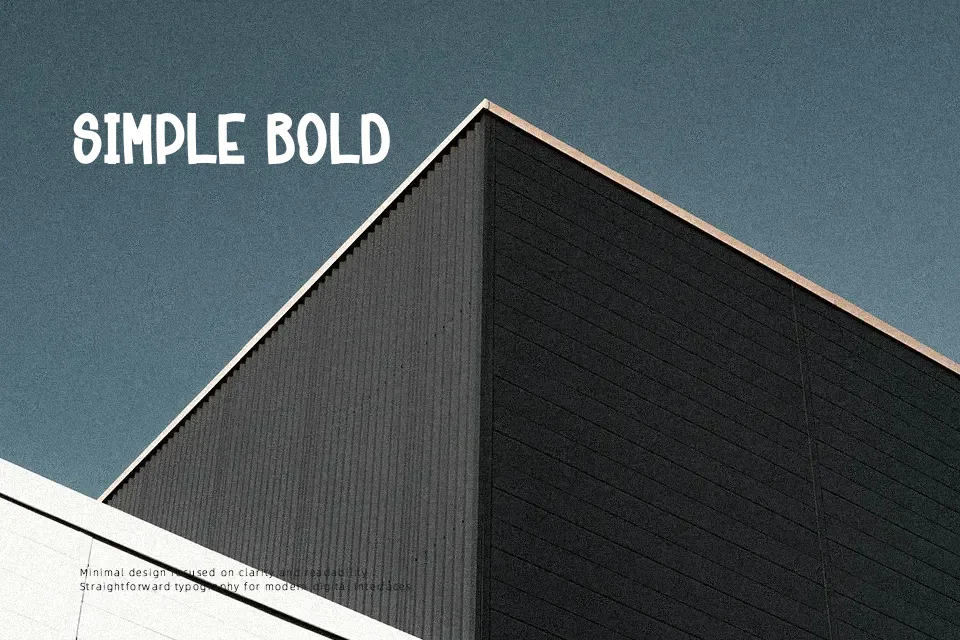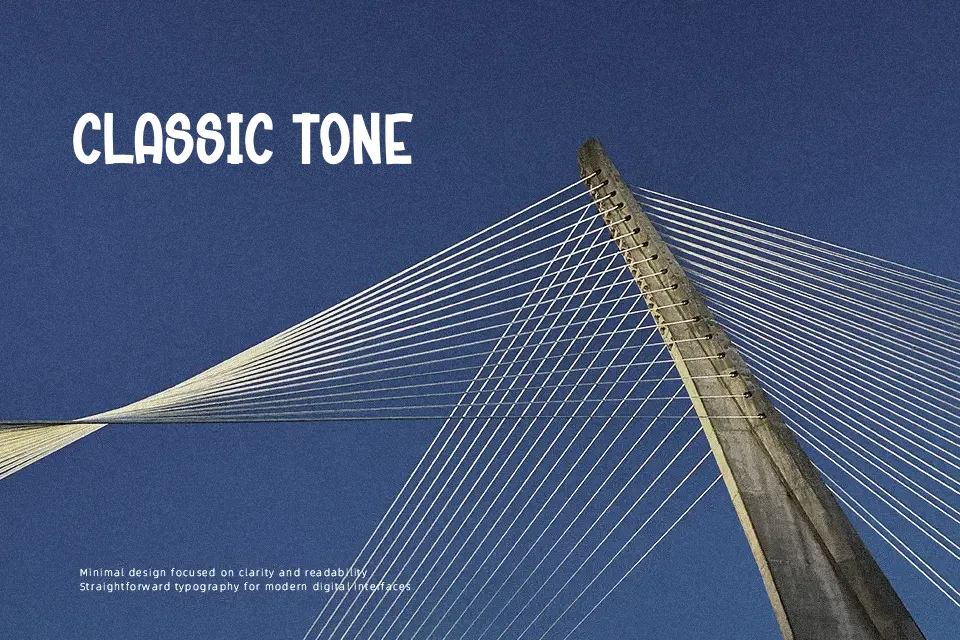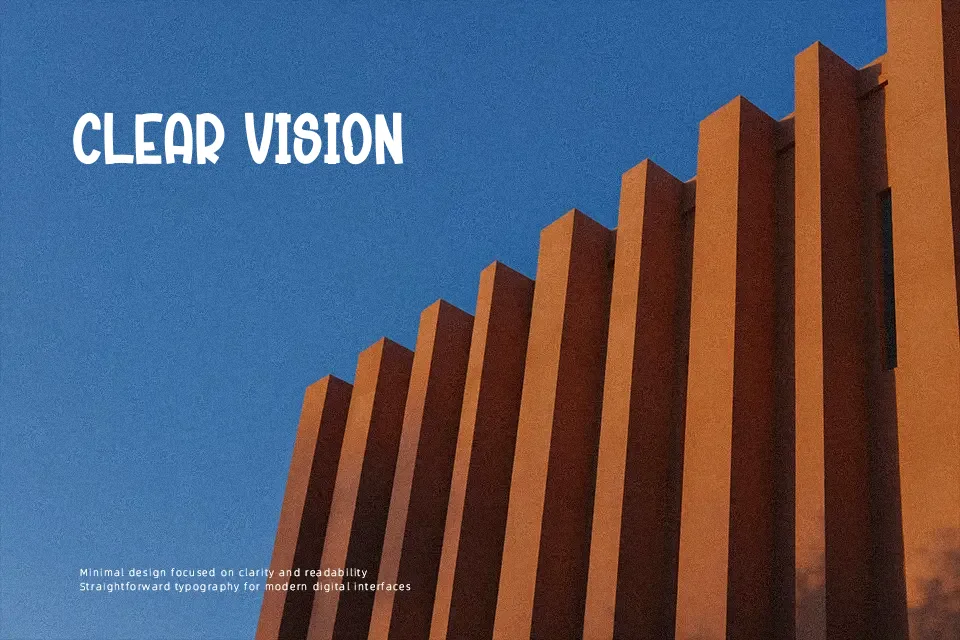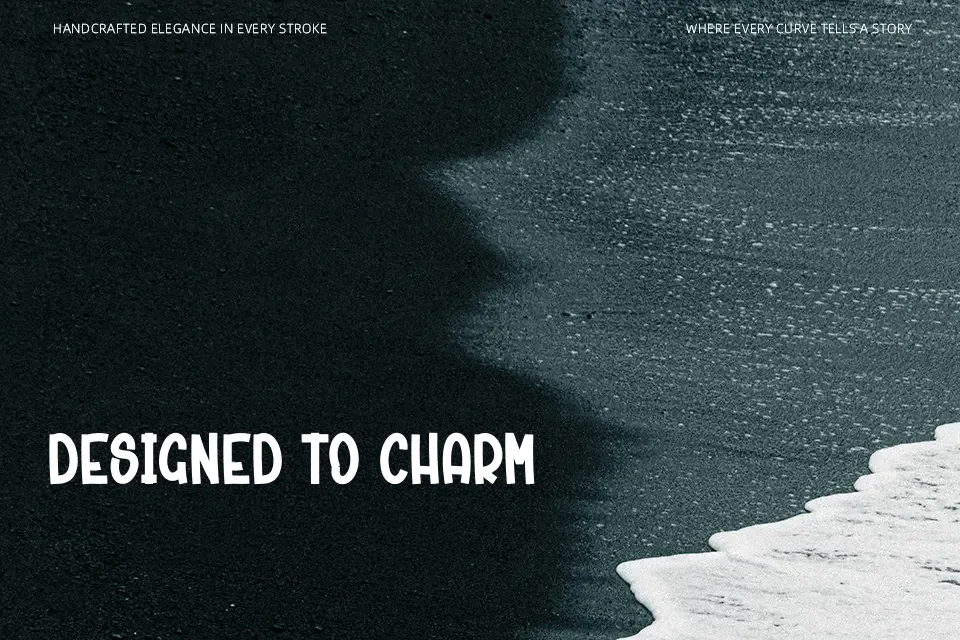
Santa December Font
Designed by Andi Moz
Santa December Font features rounded letterforms with relaxed brush strokes and moderate proportions, creating an approachable handwritten aesthetic. The balanced character spacing and consistent medium-weight lines ensure high visual clarity when set as prominent display headers or seasonal event signage. Its informal, bouncy baseline adds a casual rhythm to short phrases across print and digital media. However, the organic character joins and simplified letter structures reduce legibility in continuous paragraphs or small-scale body text. The typeface functions best when applied to generous display settings where its soft contours remain distinct.
Best For: greeting card headlines, festive product packaging, seasonal party invitations, craft merchandise labels
Not Ideal For: dense editorial paragraphs, technical documentation, small UI captions, formal corporate reports